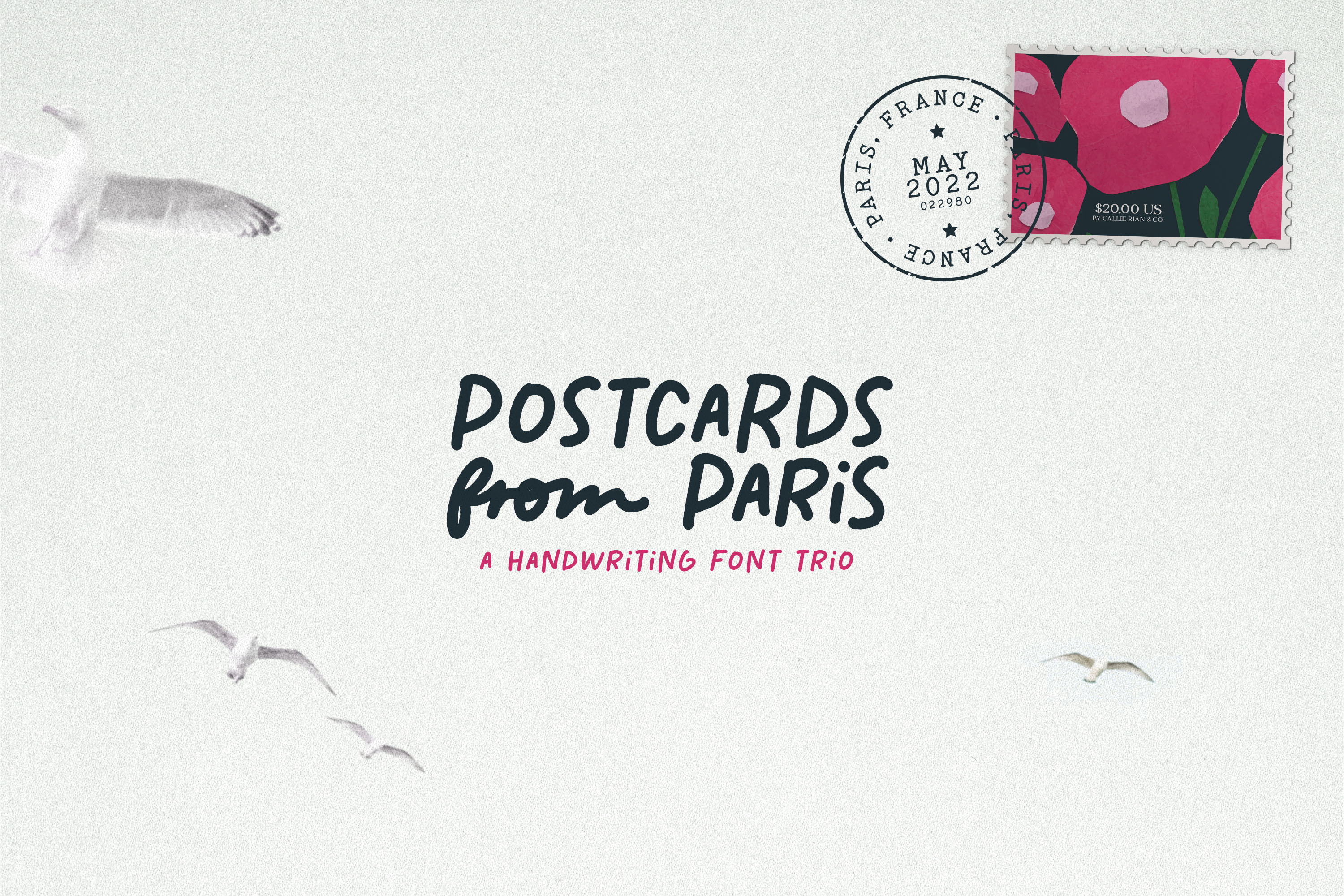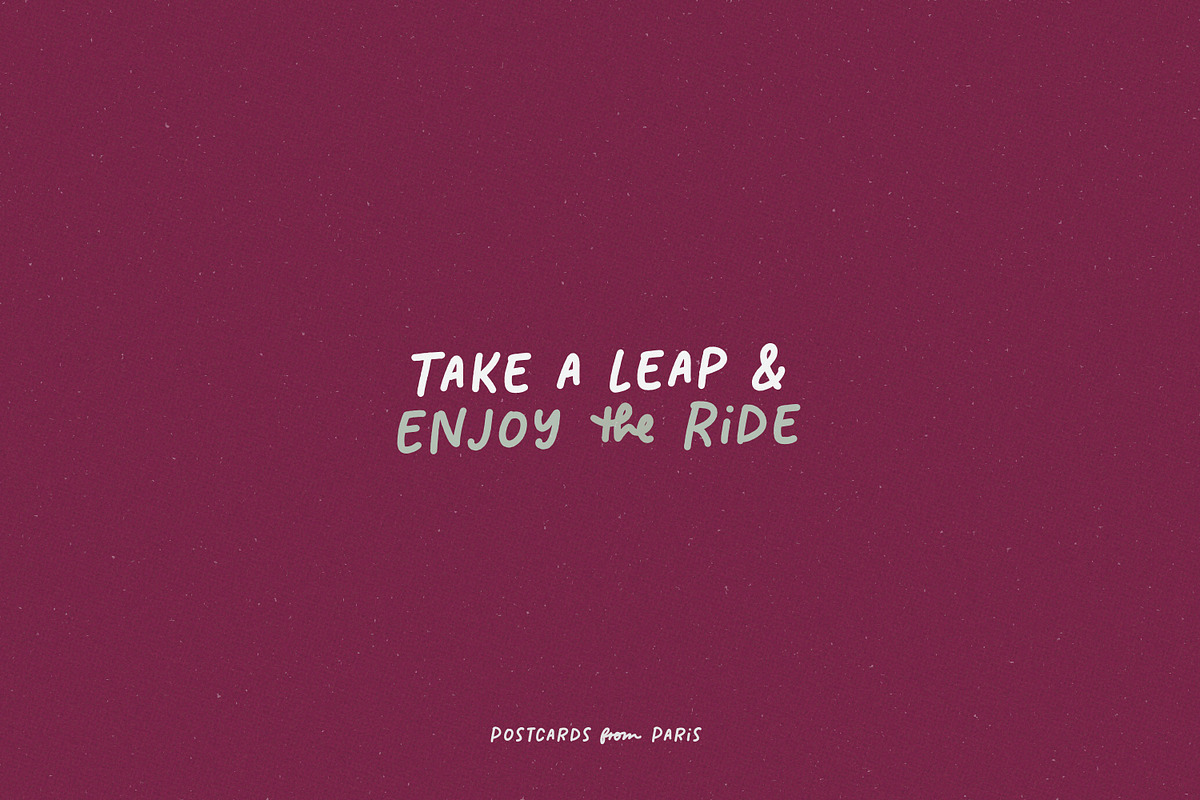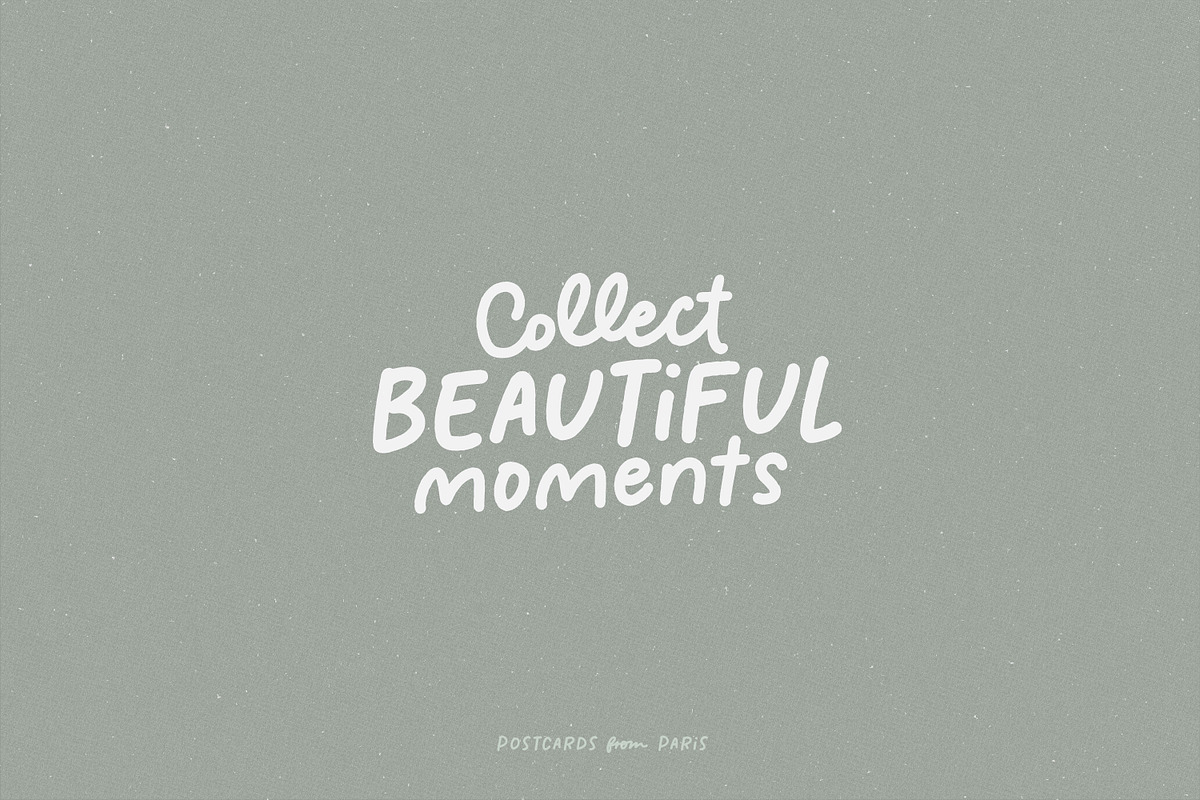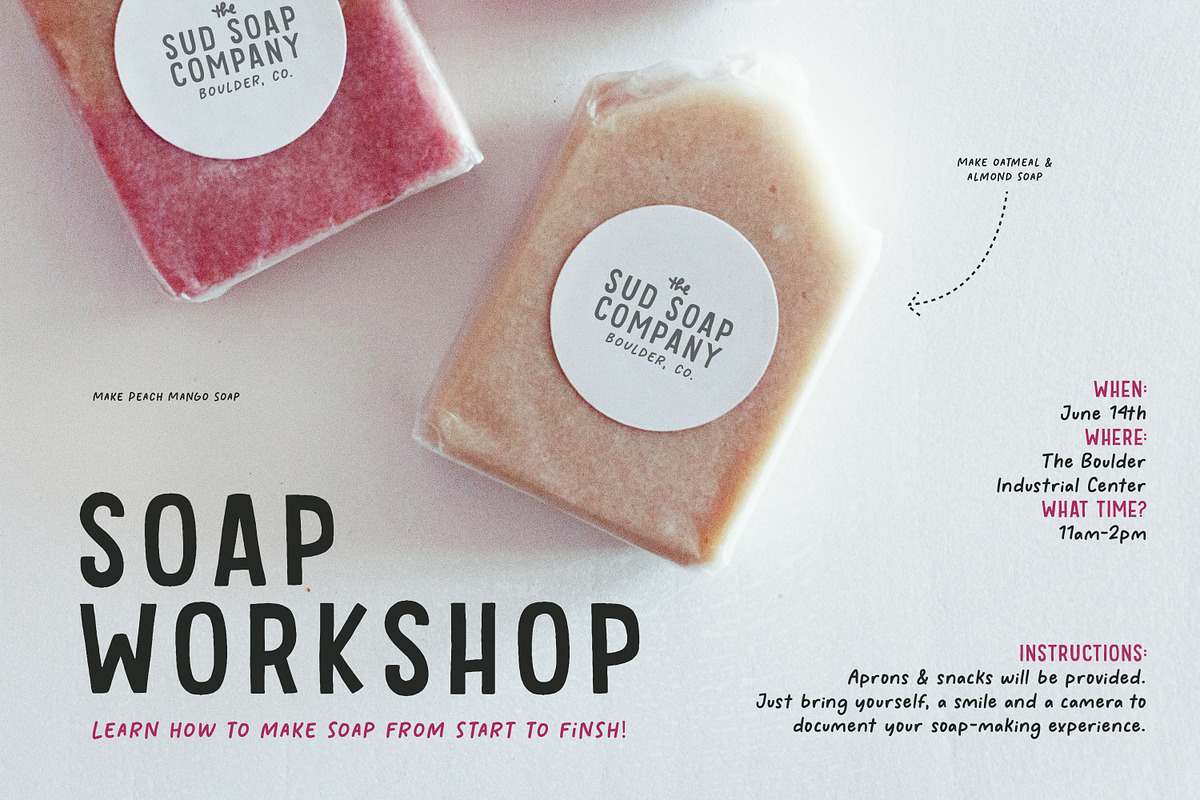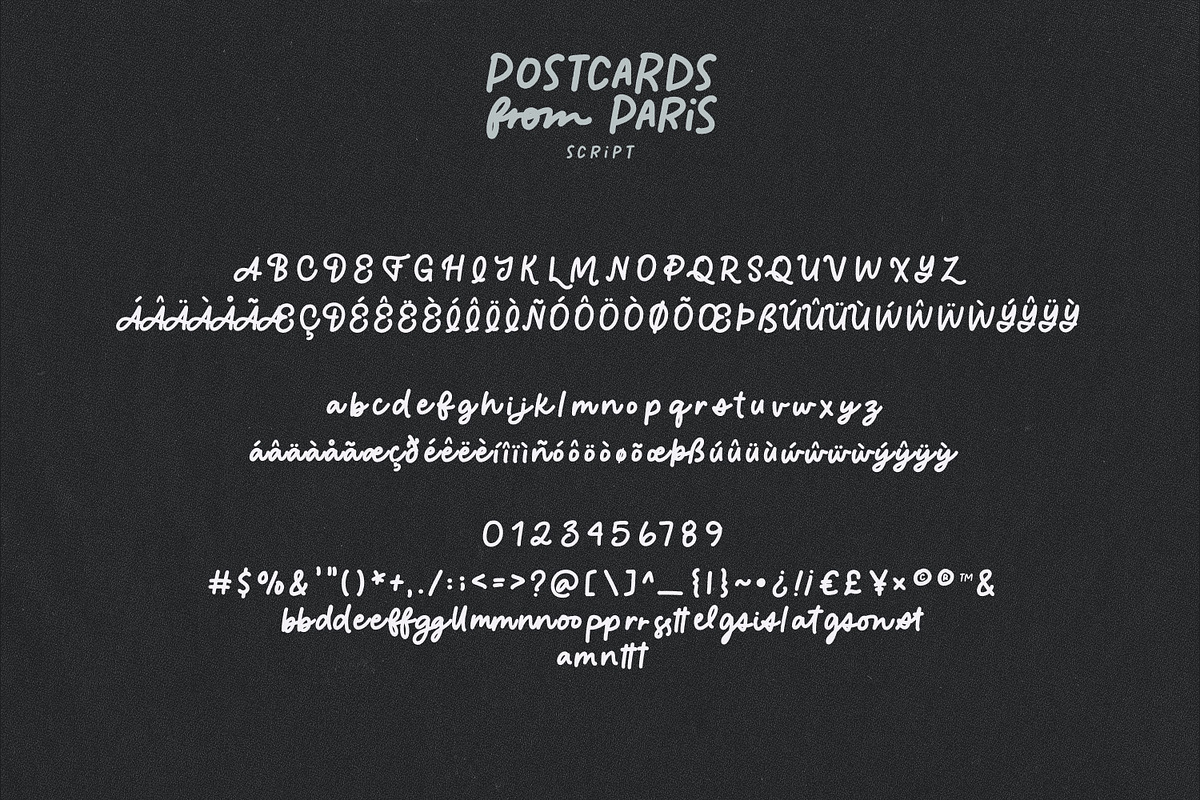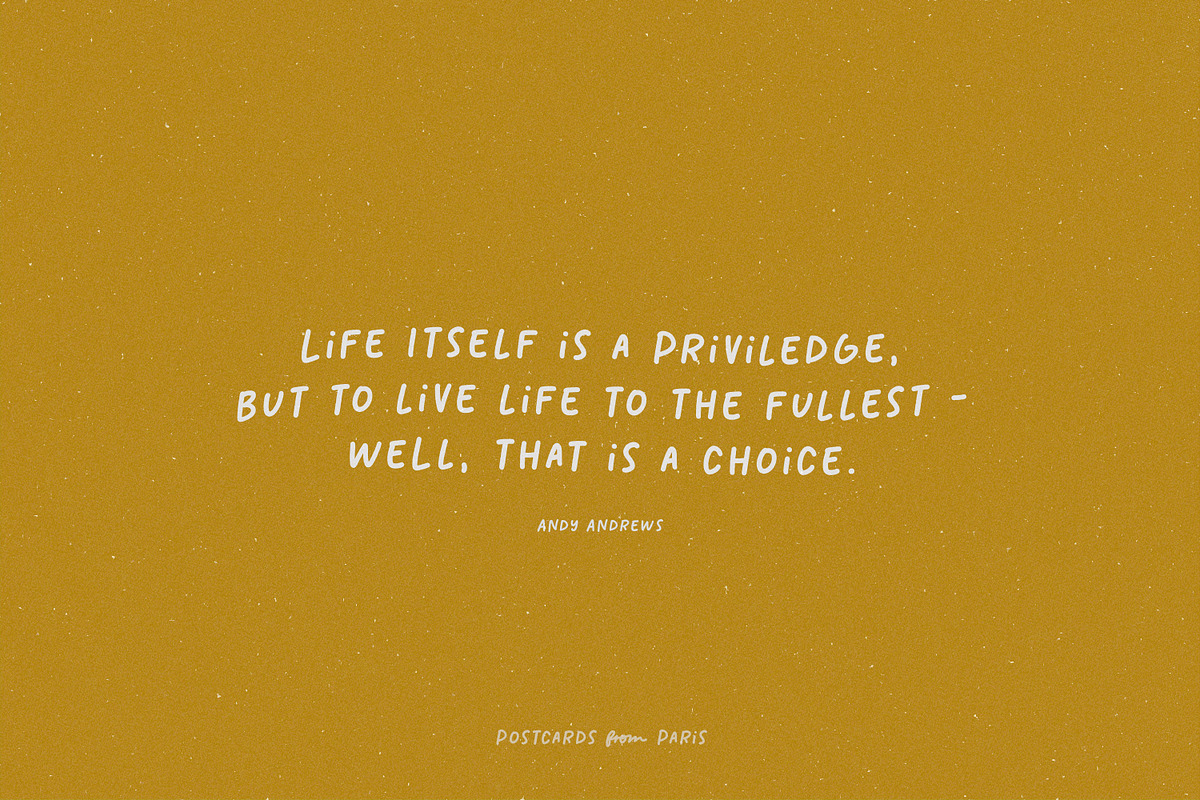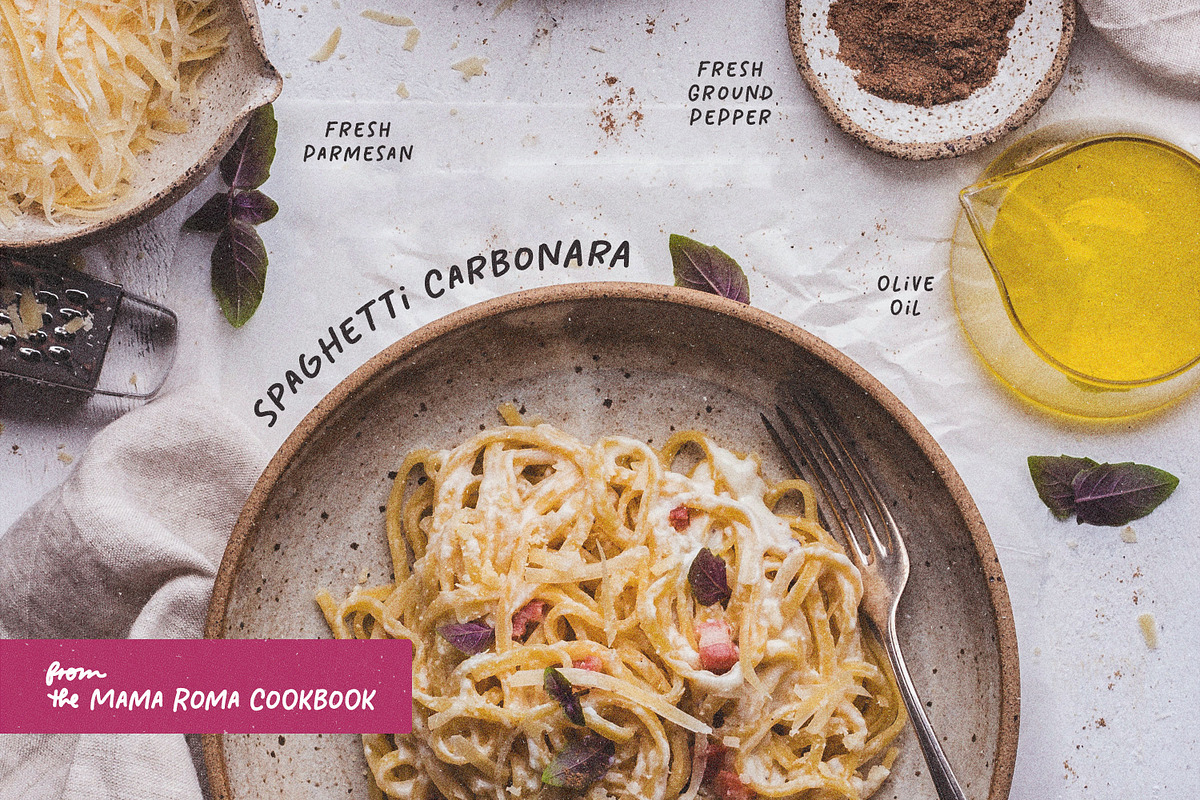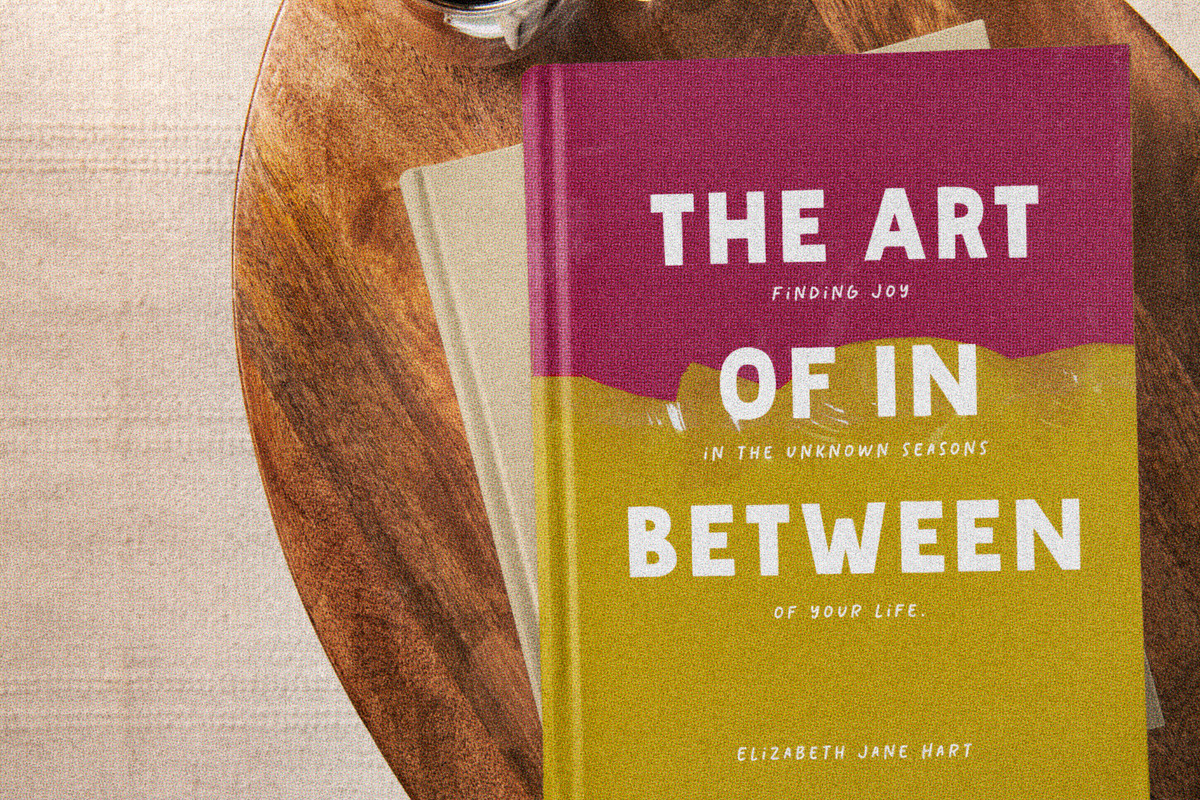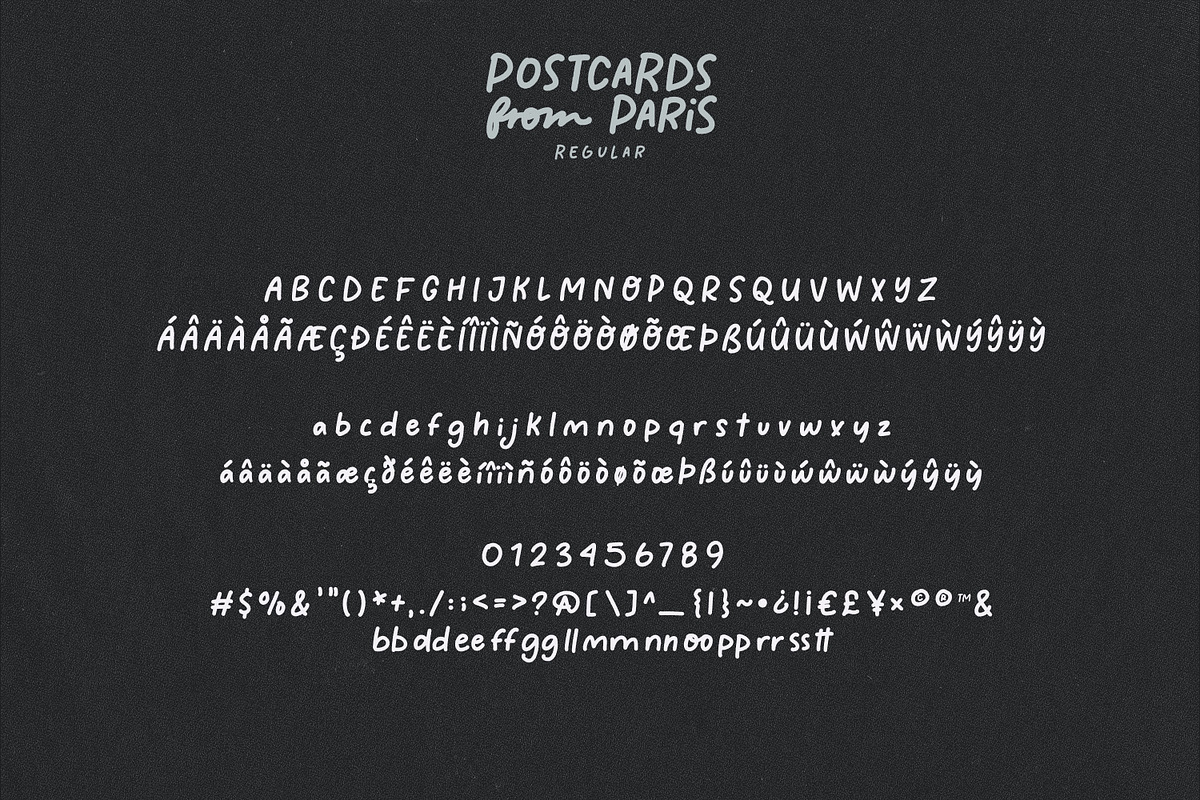
Postcards From Paris | Font Trio
If you’re anything like me, Spring is giving you some serious vacation vibes, so how about some Postcards from Paris? 😁✈️💌
Feast your eyes on this super-adorable, super-legible handwriting font TRIO, which includes a Script, an Upper/Lower case version and an All-Caps Typeface (with catchwords, ligatures & Language Support) for postcards, journals, books, labels, stickers, editorials & more! Dress it up with a clean sans or decorative serif, OR let it stand alone for quotes, websites, social media and logos!
Western European Language Support, Alternates & Catchwords.
Please Note these fonts are hand drawn and vectorized, so they have a natural texture that isn’t 100% smooth. Feel free to try them with your Cricut or Silhouette machine.